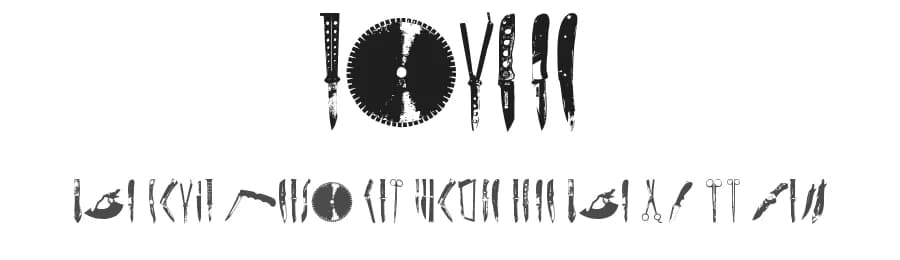
About Knives Font
i'm back with this dingbats font. the idea it's to create a font/dingbats with creepy elements, like scissors, knives and chinsaw. i hope you like it
Knives Font